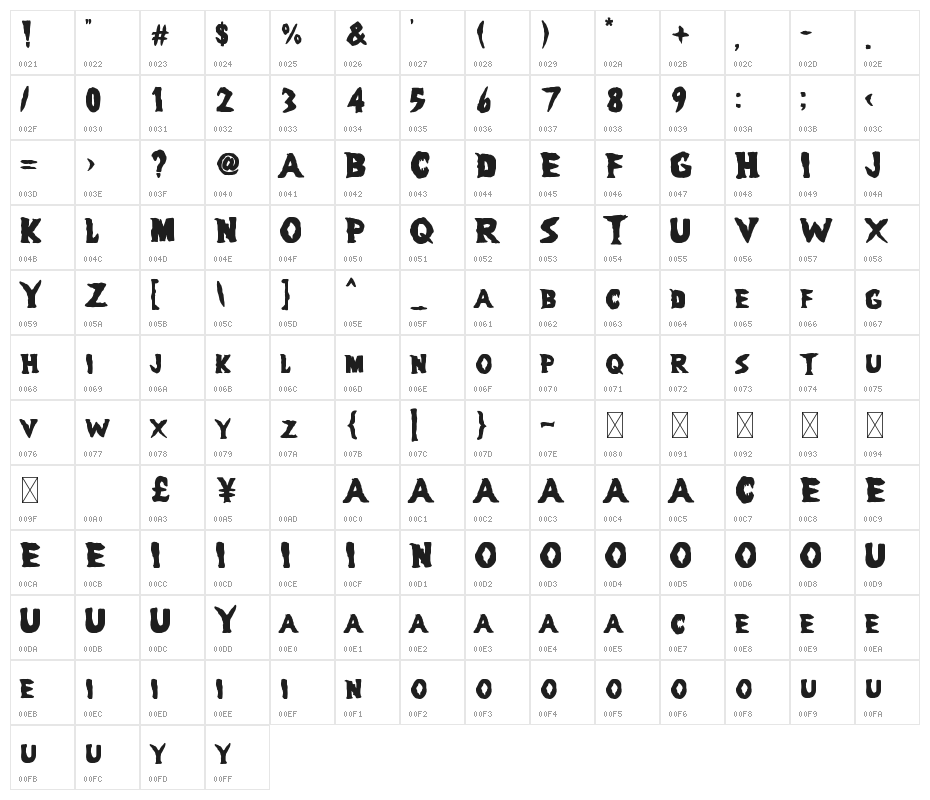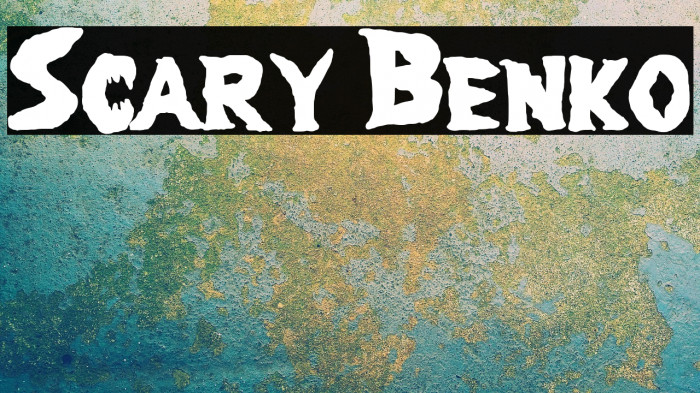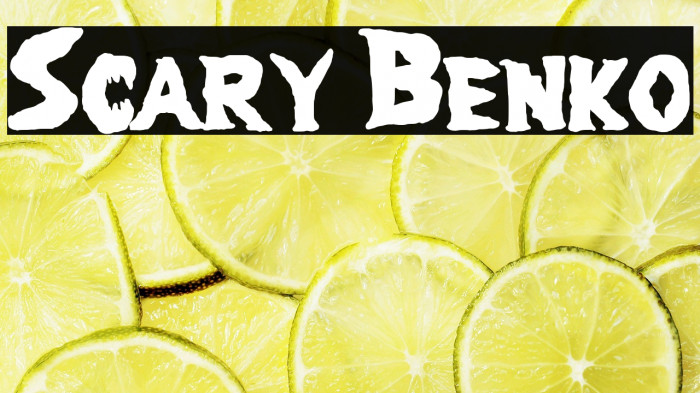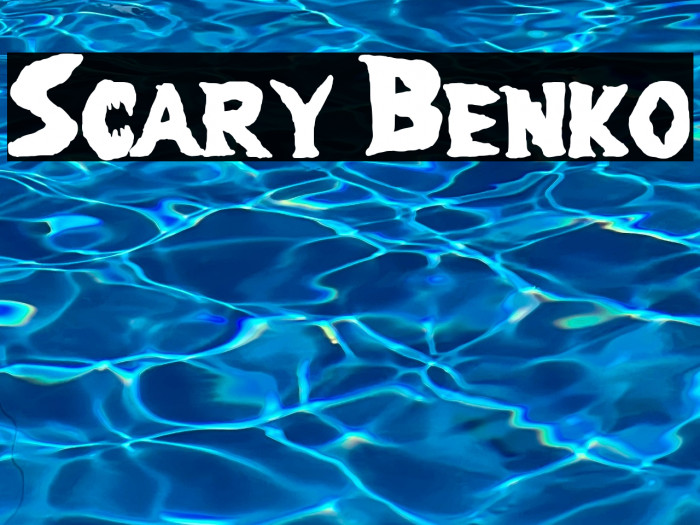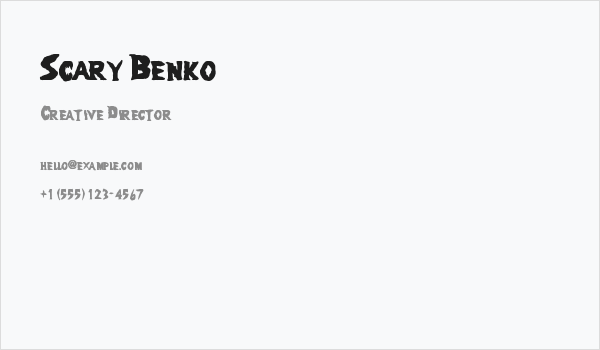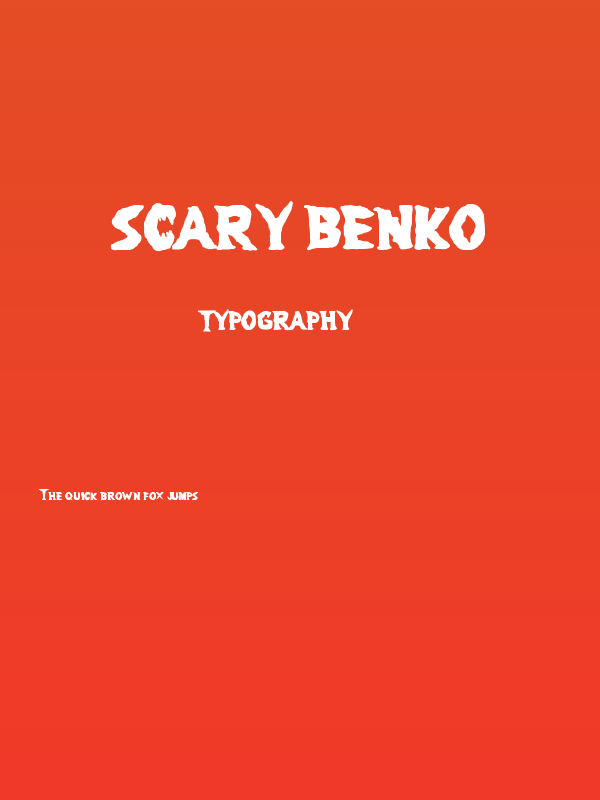
Scary Benko Font
Scary Benko Description
This font exudes a bold and eerie aesthetic, perfect for creating a spooky or horror-themed atmosphere. The characters are heavily stylized with jagged edges and irregular shapes, giving them a distressed and unsettling appearance. The uppercase and lowercase letters maintain a consistent style, with exaggerated serifs and a hand-drawn feel that adds to the overall creepy vibe. The numbers and special characters follow the same design principles, ensuring a cohesive look across all text elements. This font is ideal for projects that require a dramatic and eye-catching typeface.
| Proposed Projects | Ideal for Halloween-themed designs, horror movie posters, haunted house flyers, and any project needing a dramatic, eerie typeface. |